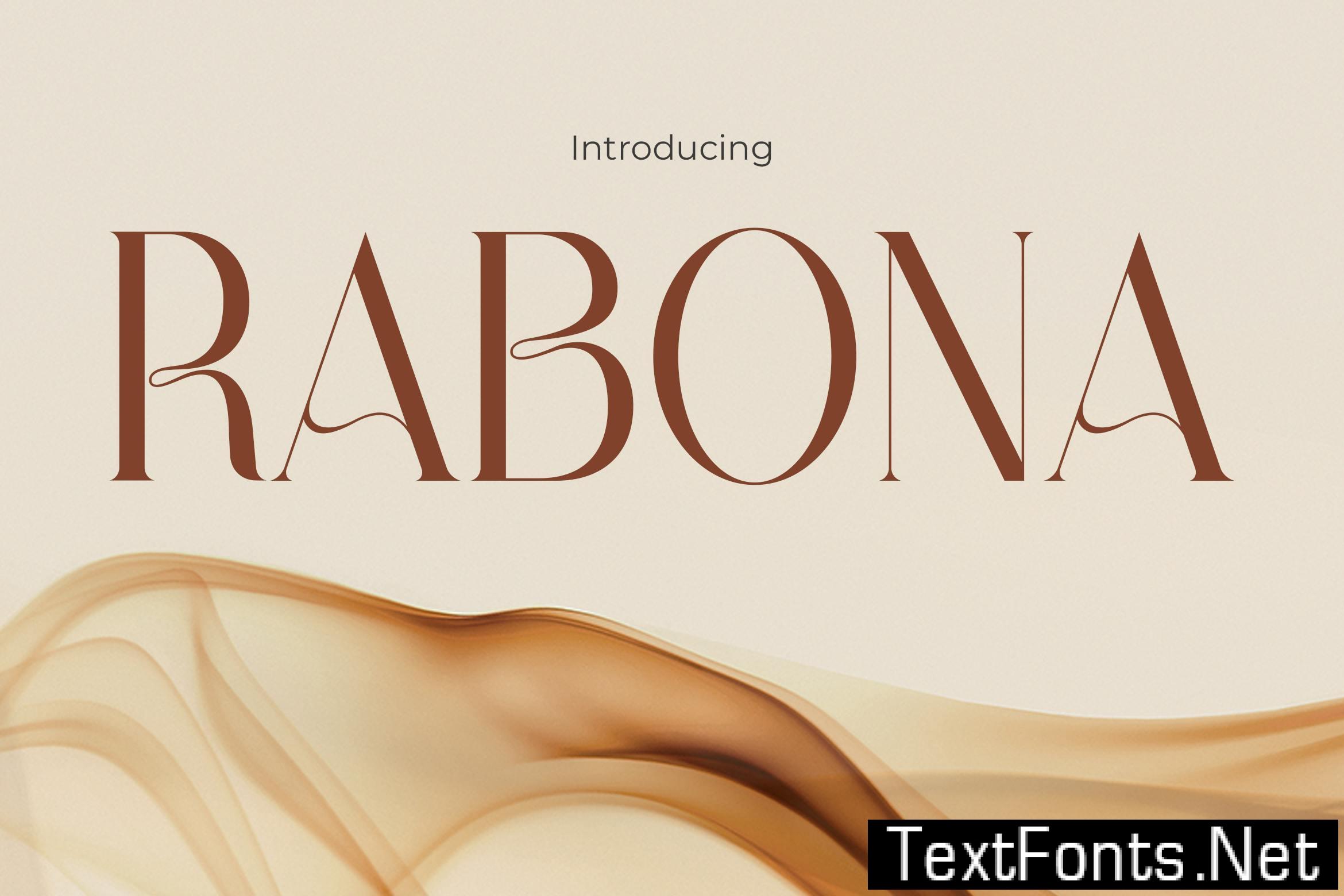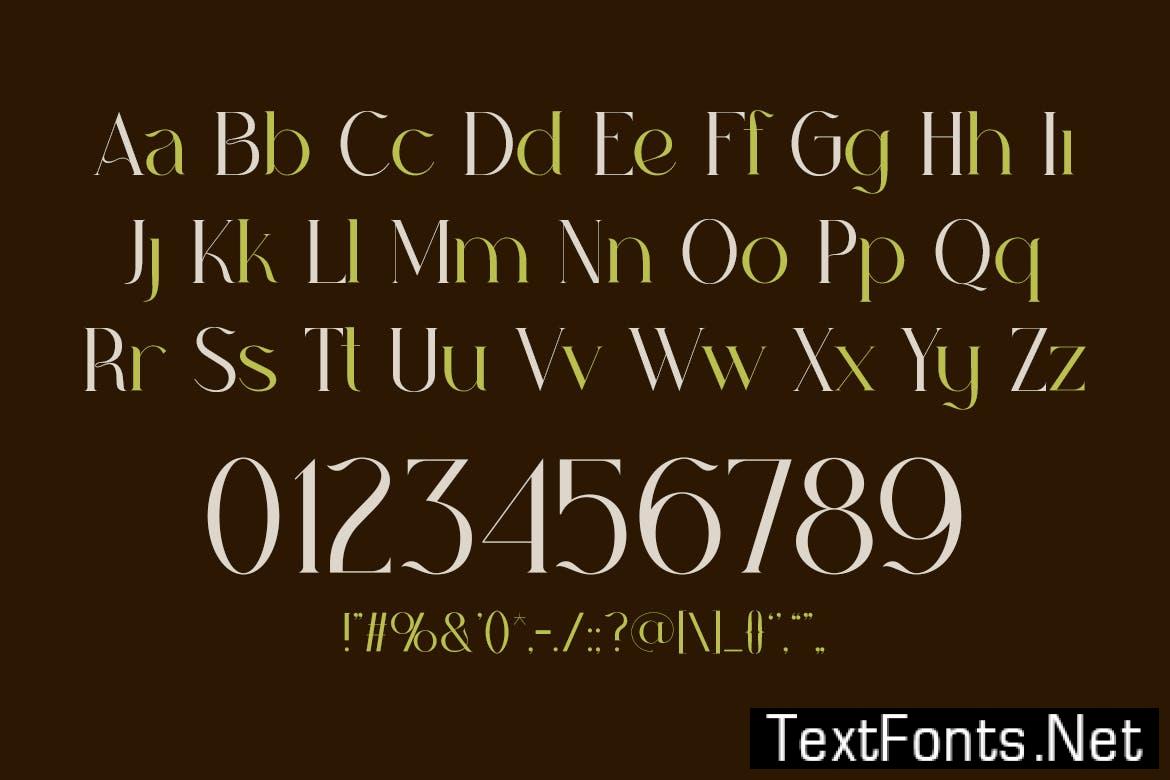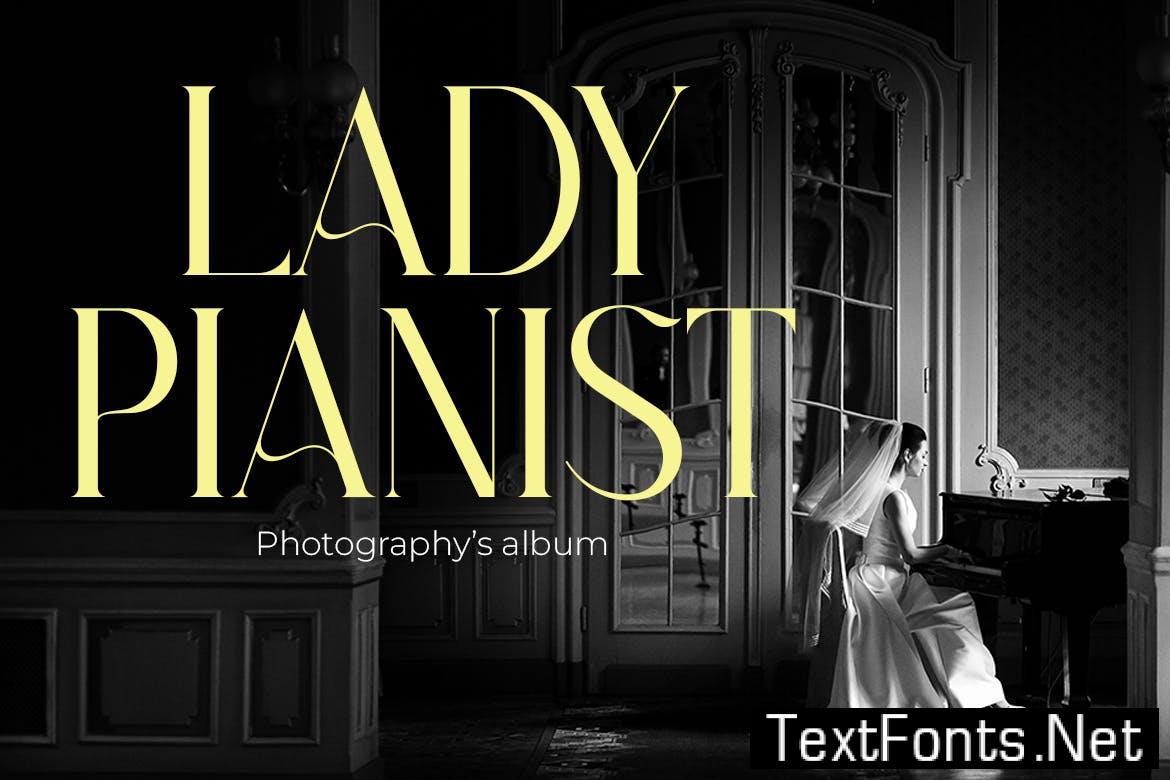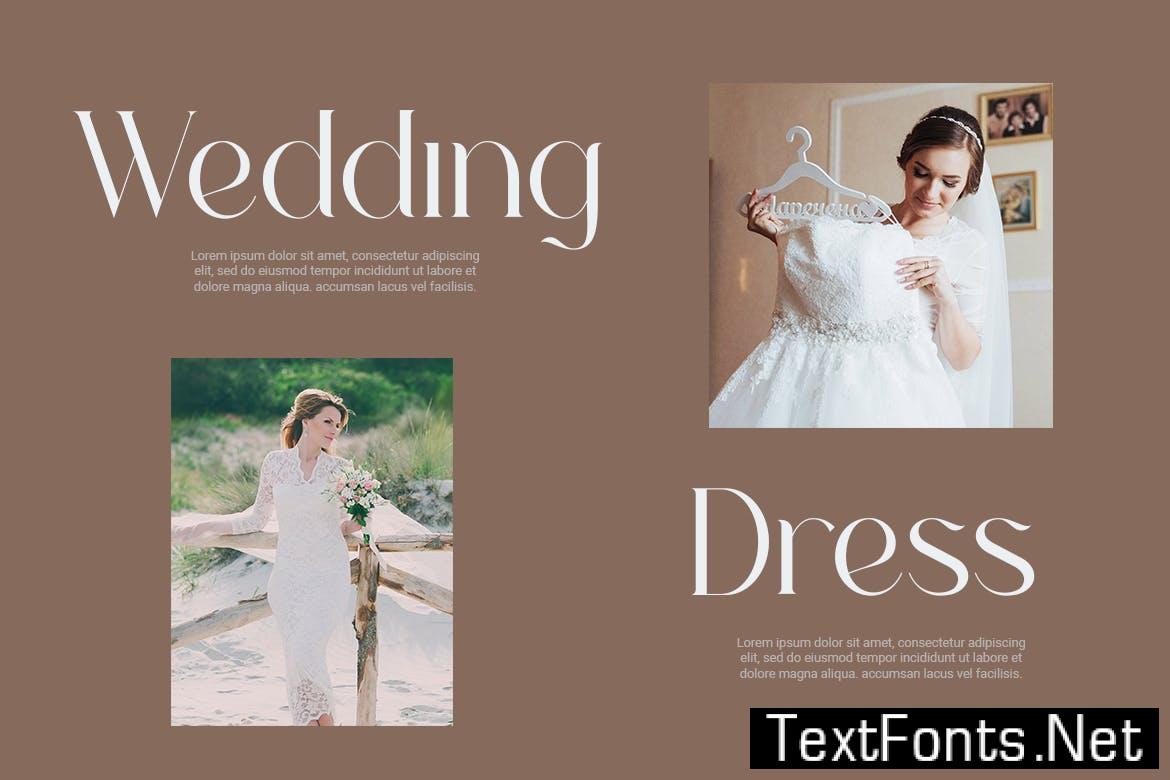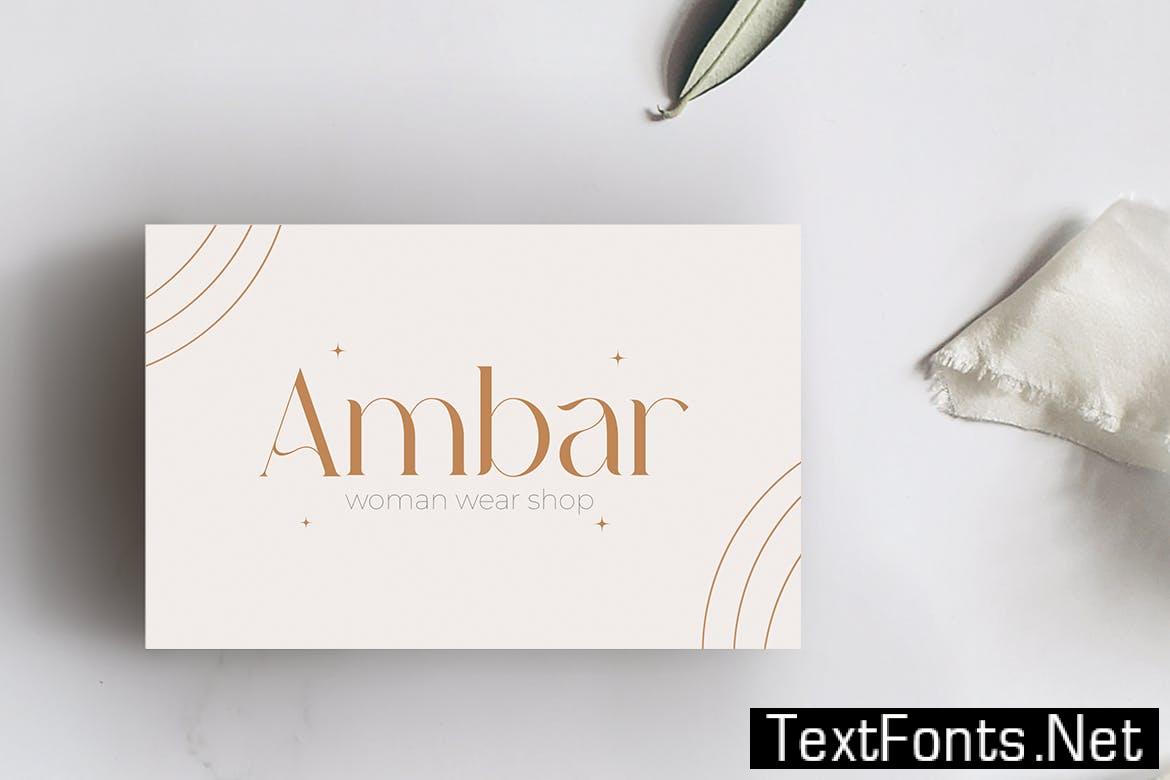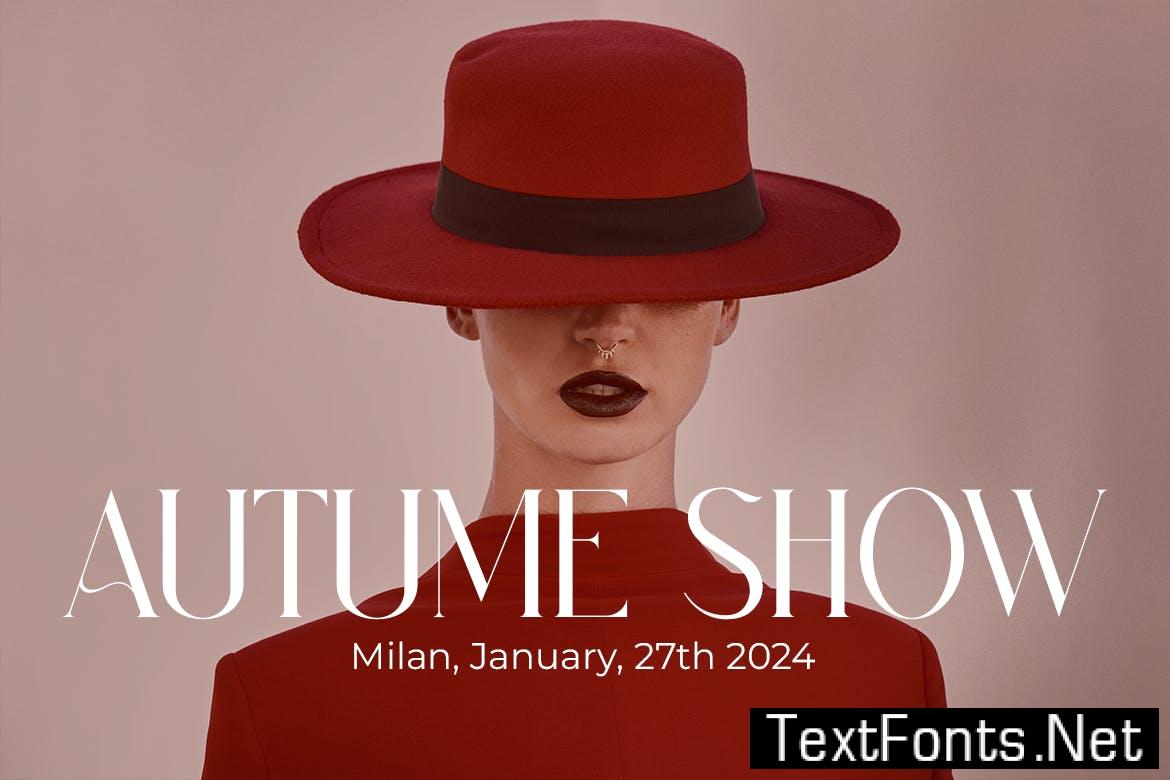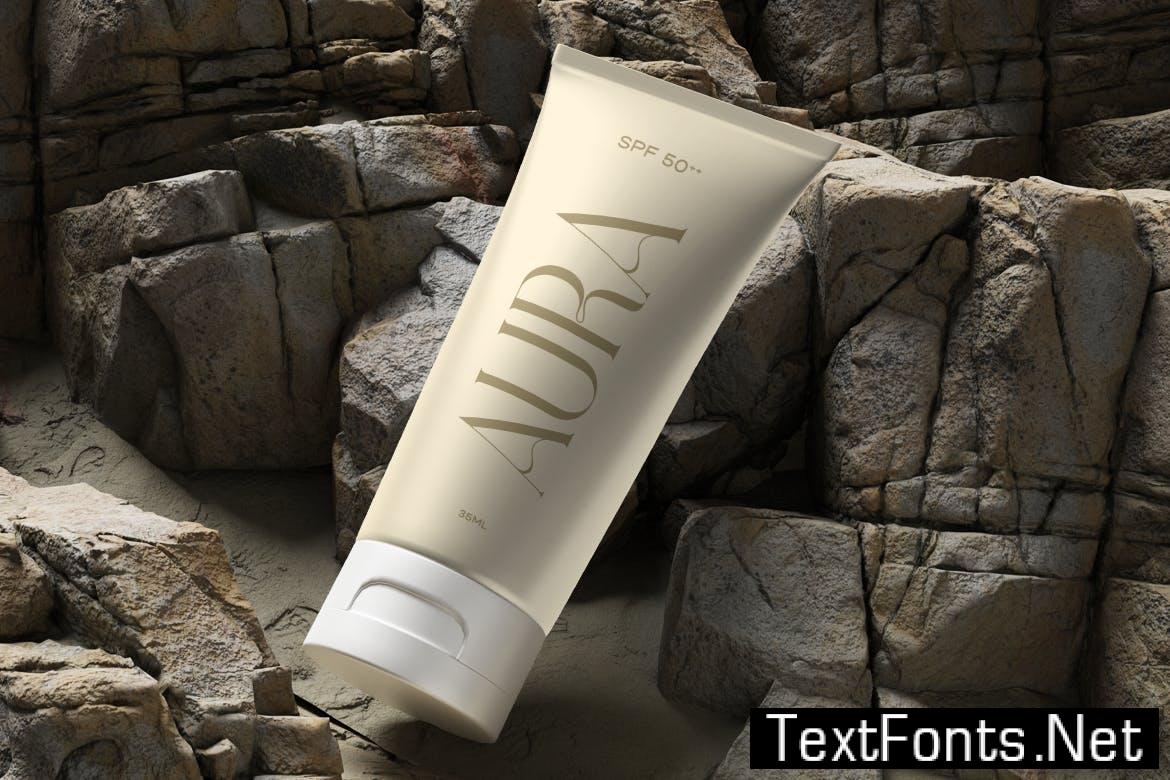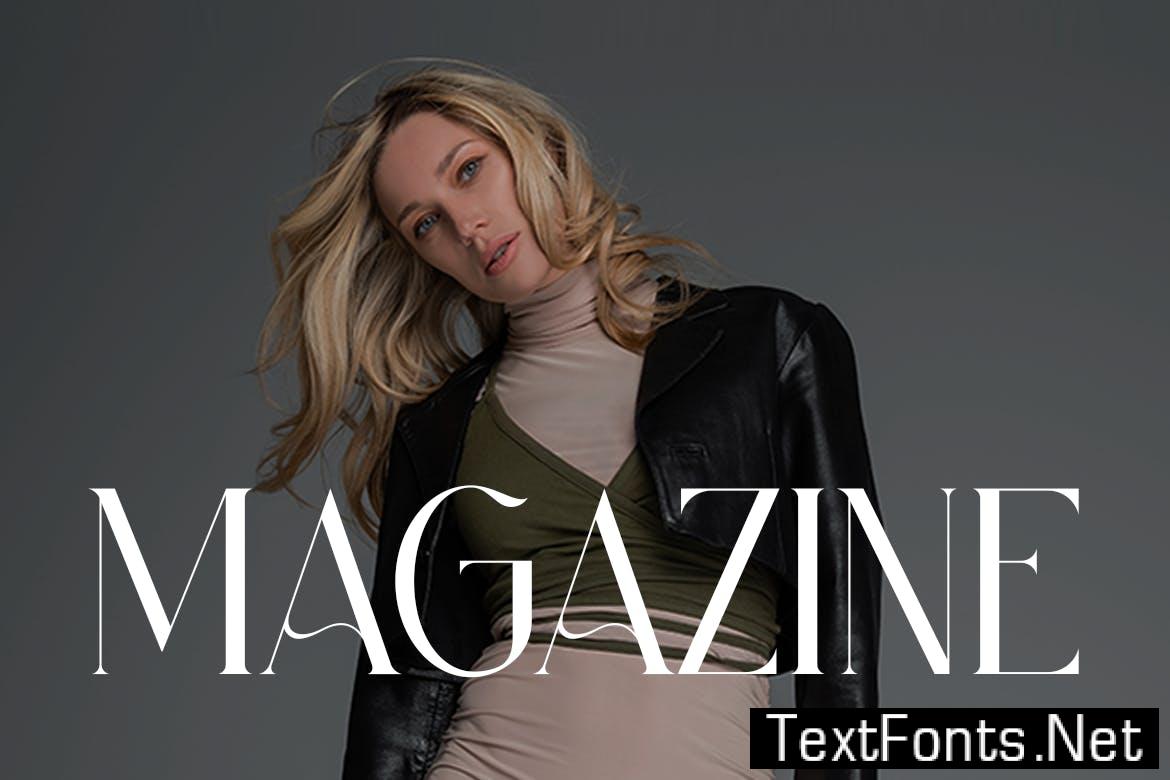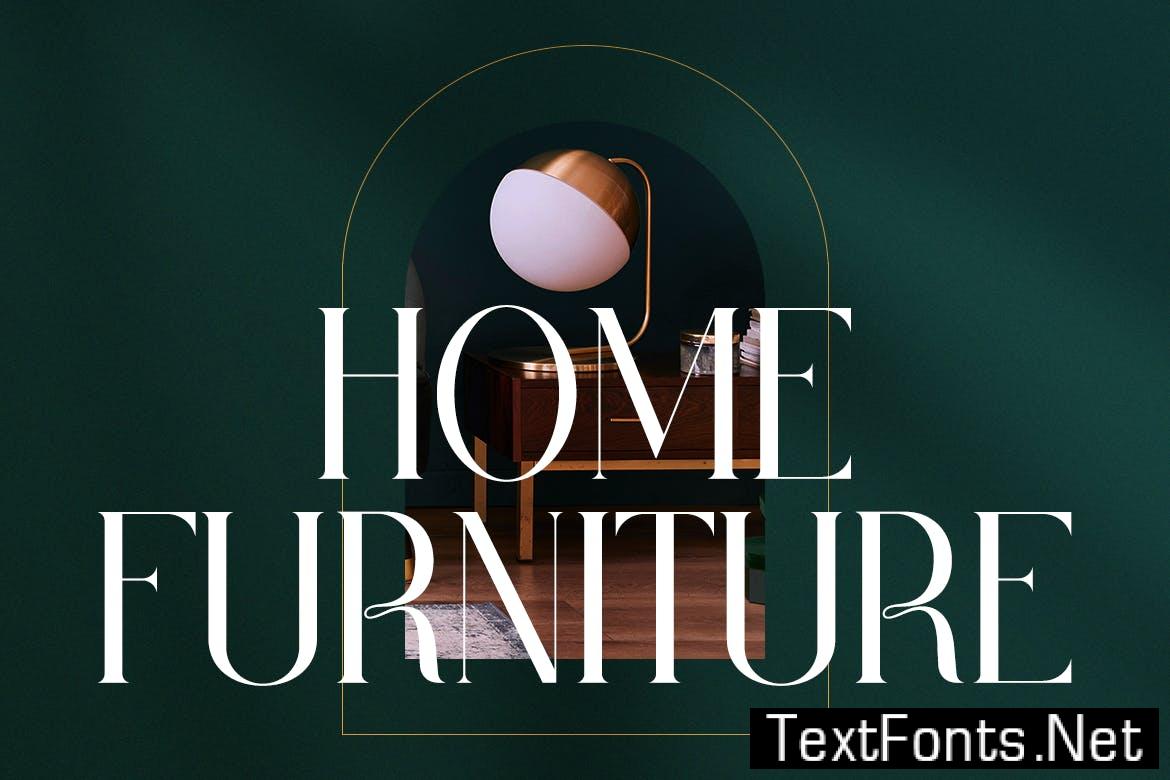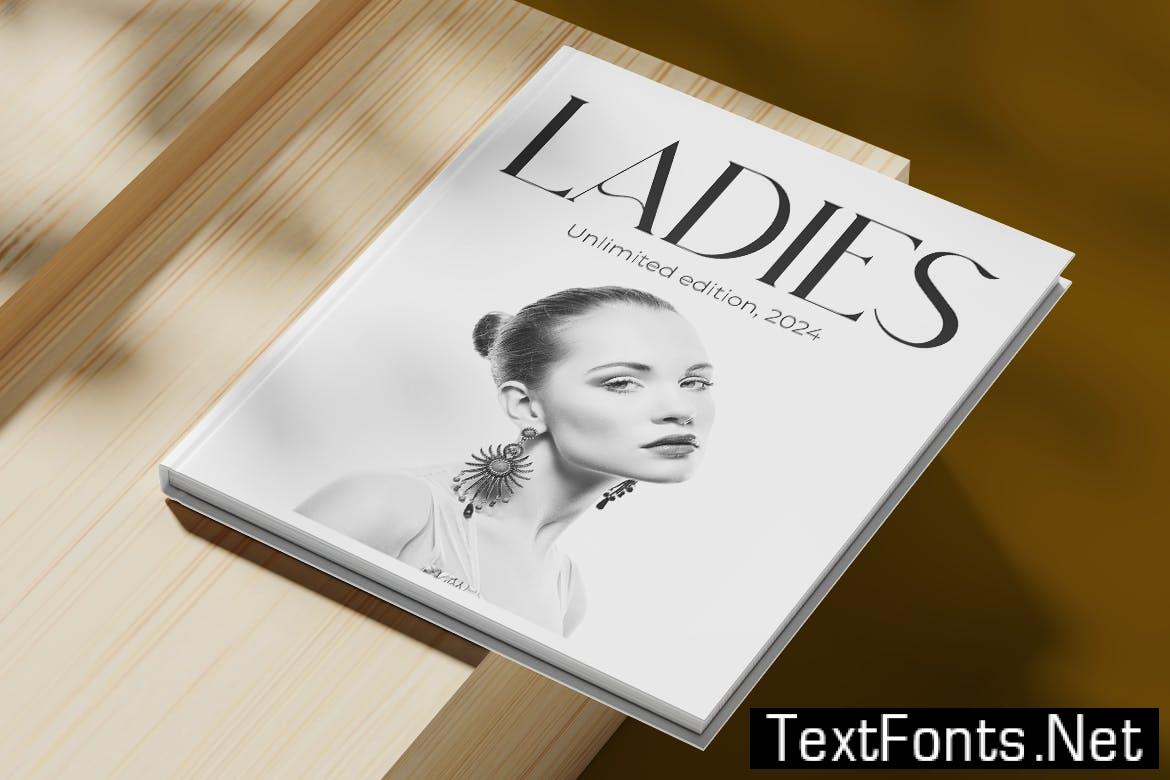
Rabona – Modern Elegance Font EF9CKD6
Rabona is a font that epitomizes modern elegance, designed to bring a refined and stylish look to any project. Perfect for professionals and creatives alike, this font excels in applications ranging from logos to advertising, infusing each project with its distinctive charm. Whether you are crafting eye-catching logos, engaging quotes, or sophisticated invitations, Rabona adds a touch of class that elevates your designs. Its sleek modernity ensures that posters and greetings stand out, while its elegance makes packaging and branding look exceptionally chic. Rabona is also ideal for book covers, event materials, headlines, and any advertising efforts, providing a consistently polished and upscale appearance.